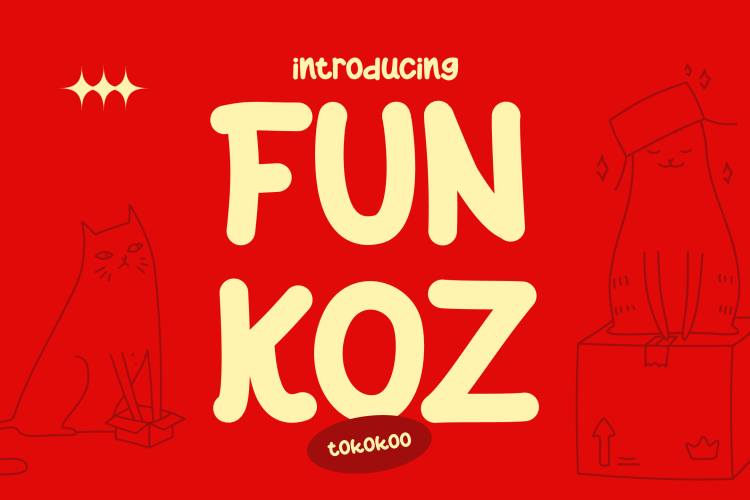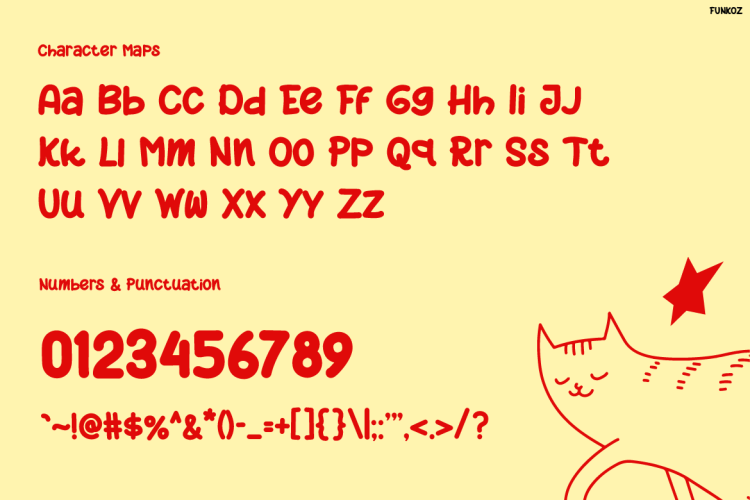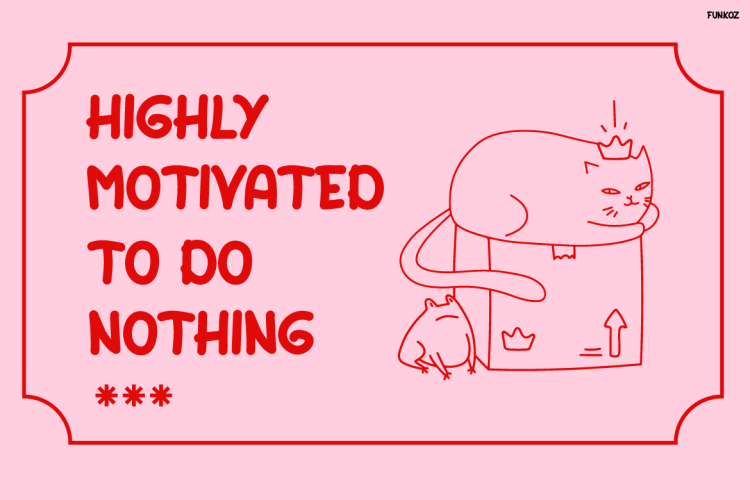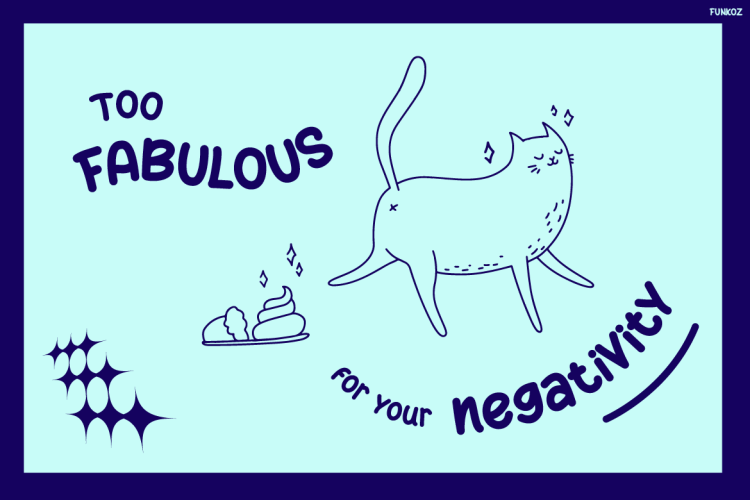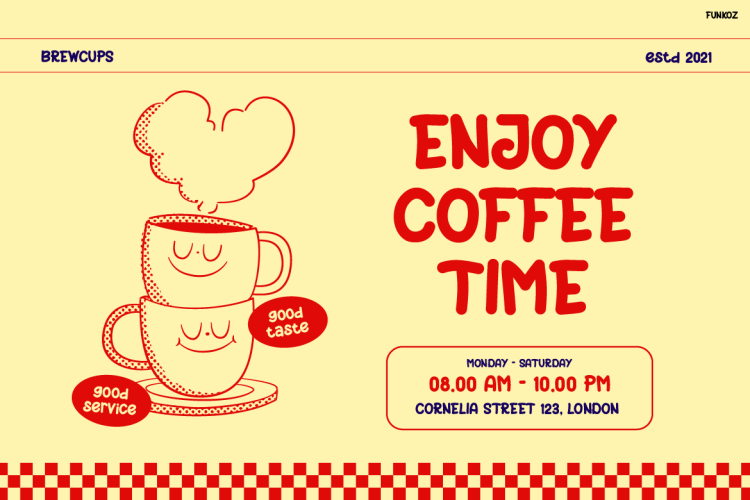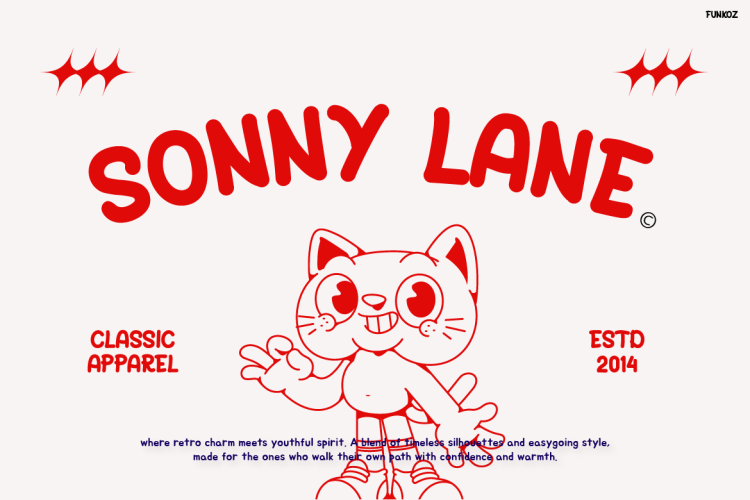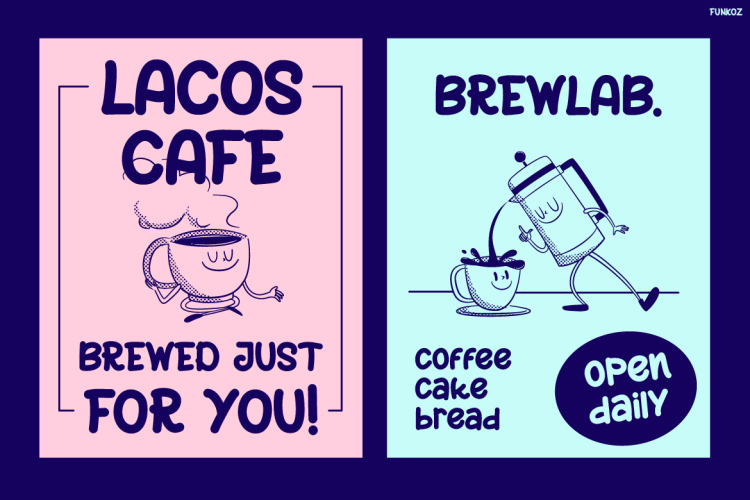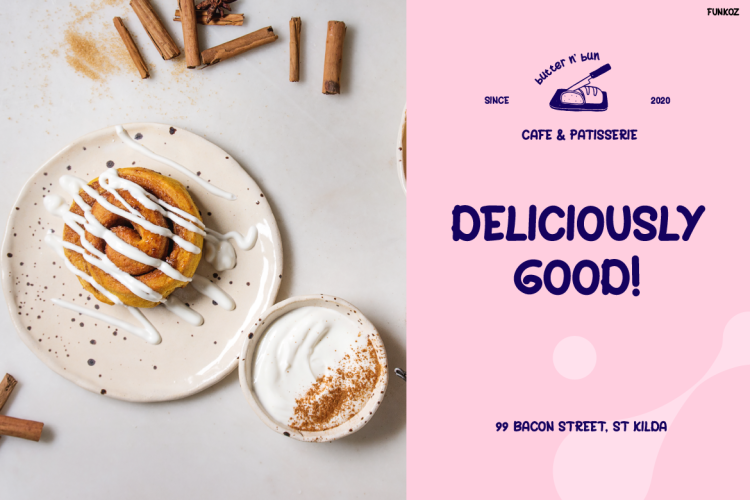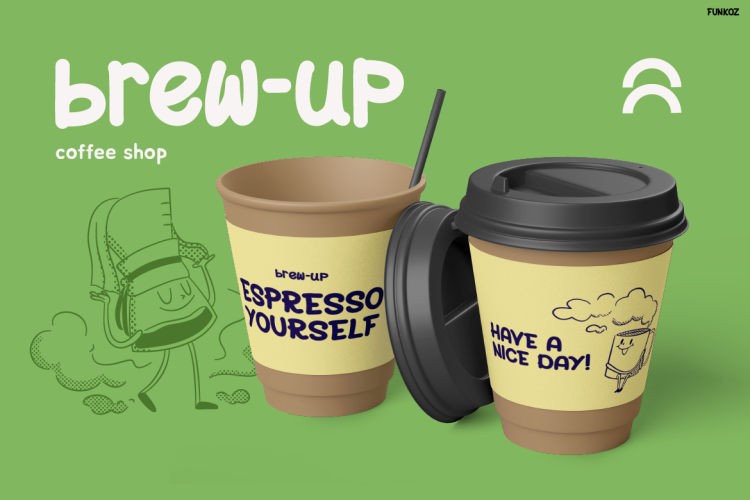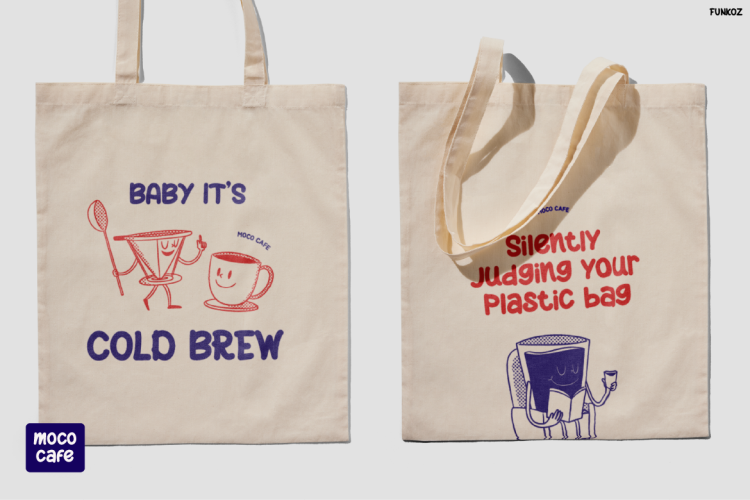
Kids Font FUNKOZ โ Where Playfulness Meets Creative Energy!
Kids Font FUNKOZ is not just a typeface โ itโs a celebration of joy, curiosity, and imagination! Each letter bounces with personality, capturing the essence of childhood fun and artistic flair. With its soft curves, funky shapes, and smooth flow, this font instantly adds a lively vibe to your designs. It feels hand-drawn yet perfectly balanced, making it both playful and easy to read.
Imagine a font that brings to life doodles, laughter, and those colorful moments of creativity โ thatโs FUNKOZ. Itโs perfect for anyone who wants to give their designs that adorable, hand-crafted touch without losing modern appeal. The quirky edges and fun proportions create a friendly, approachable aesthetic that works beautifully in both digital and print designs. Whether used for branding, packaging, or social media, FUNKOZ instantly stands out with its charm and positivity.
Perfect For: Creators Who Love Color, Joy, and Energy
FUNKOZ is designed especially for graphic designers, illustrators, teachers, and small business owners who love adding personality to their work. Itโs ideal for kids-related designs, cute cafรฉ logos, fun stationery, party invitations, cartoon merchandise, or playful product packaging.
If your design speaks to children, families, or creative communities, this font fits right in. Itโs a perfect tool for storytellers โ from playful book covers to cheerful social media posts. The expressive style helps messages pop off the page and invites viewers to smile. Whether youโre designing for print or pixels, FUNKOZ gives every project a splash of color and happiness.
Let FUNKOZ Spark Your Next Idea!
Add Kids Font FUNKOZ to your creative toolkit and watch your ideas come alive. Itโs a joyful font that spreads positivity wherever it appears โ from coffee cups to tote bags and posters. With its unique, heartwarming look, FUNKOZ helps your designs stand out in a sea of sameness. So go ahead โ bring the fun, bring the charm, bring FUNKOZ into your next project and make every word feel alive!